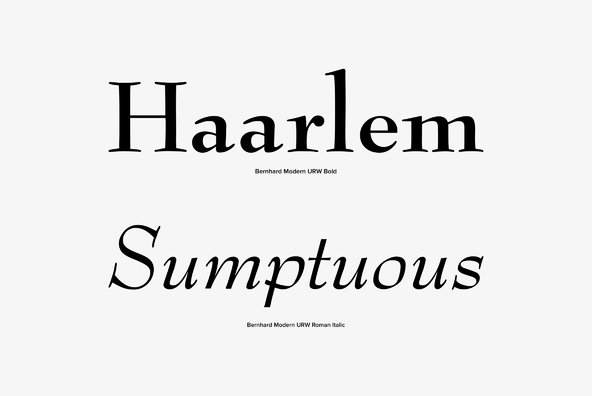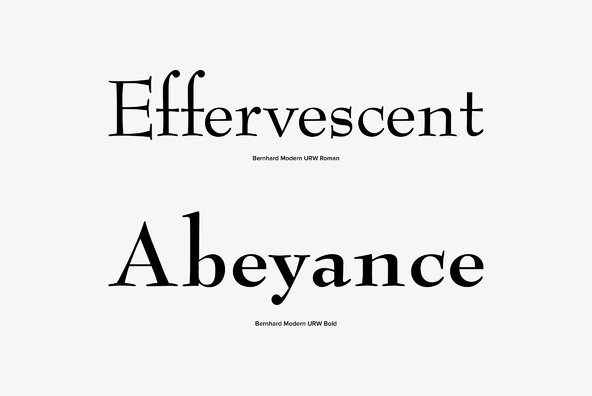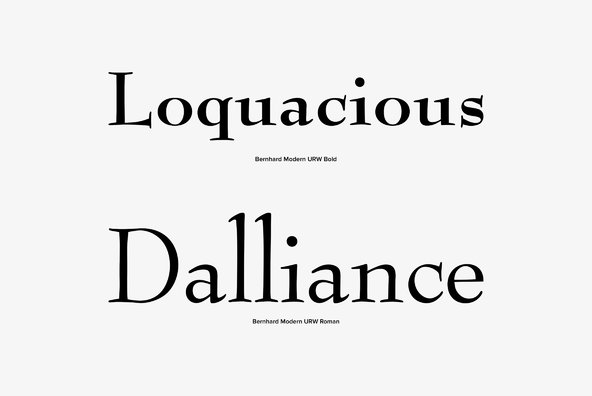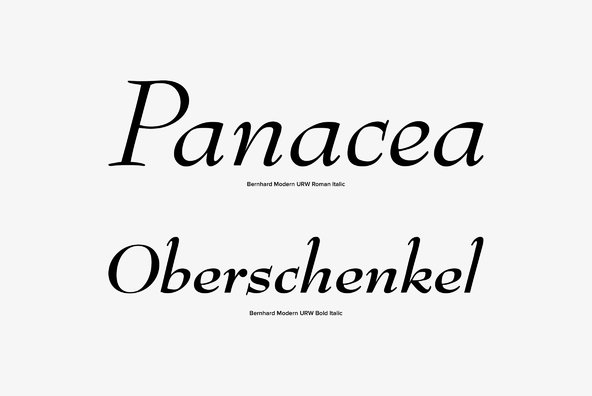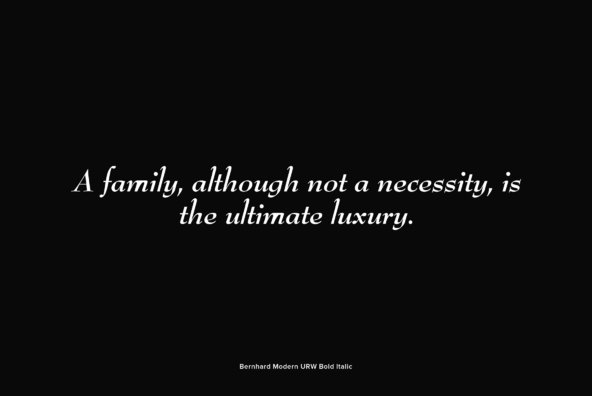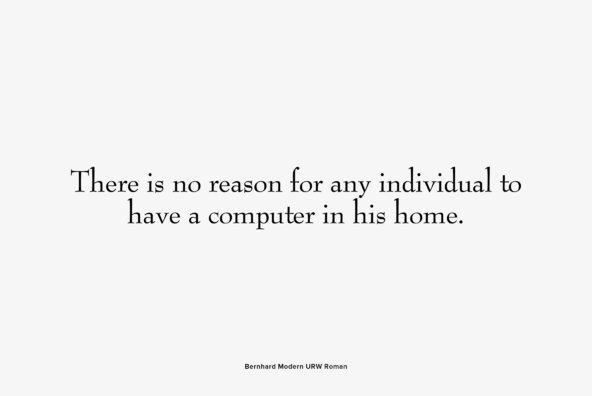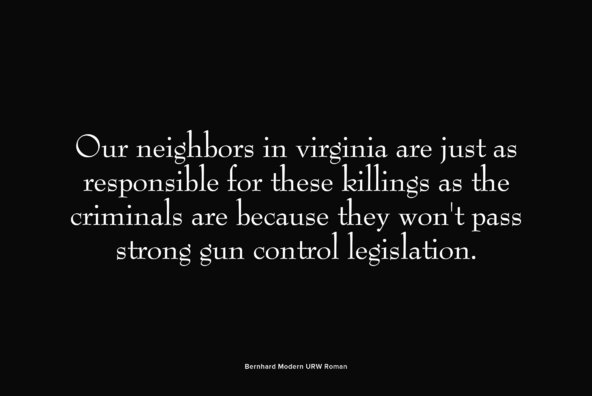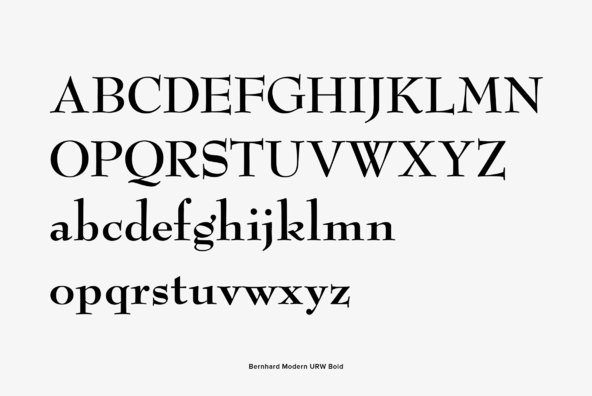
Bernhard Modern
Bernhard Modern is an old style classification serif typeface designed by Lucian Bernhard in 1937 for the American Type Founders (ATF). Lucian Bernhard's Bernhard Modern typeface was the ATF's response to the many popular old style engraving faces of the early 20th century. A somewhat decorative text typeface, it is distinct for its low x-height, elongated ascenders, and relatively short descenders giving it an appearance of height without requiring excessive leading. Serifs are wide and splayed. The lowercase roman g is unusual for having the upper bowl larger than the lower one. Fordham University, in New York City, currently uses Bernhard Modern as the central typeface of its design identity.